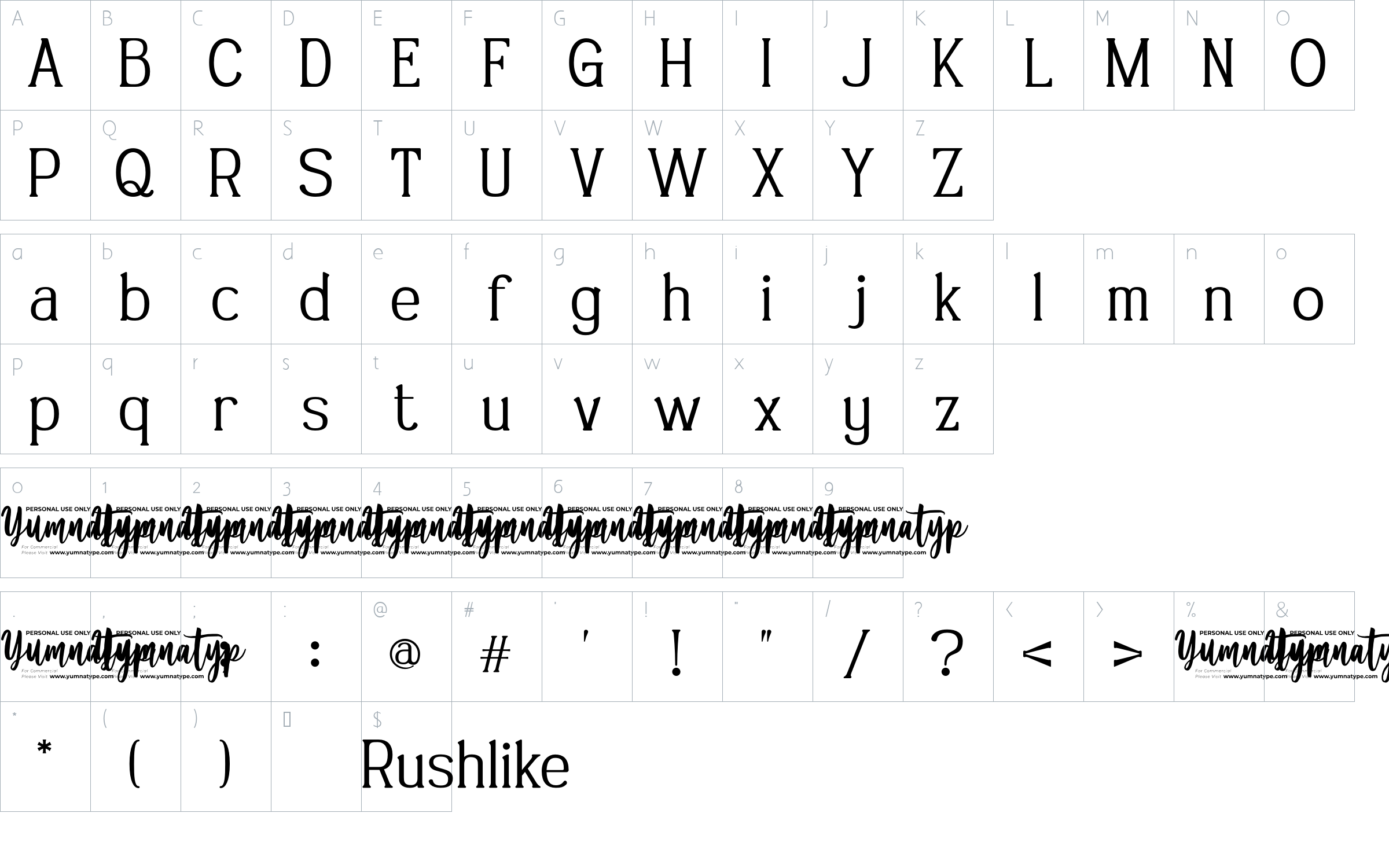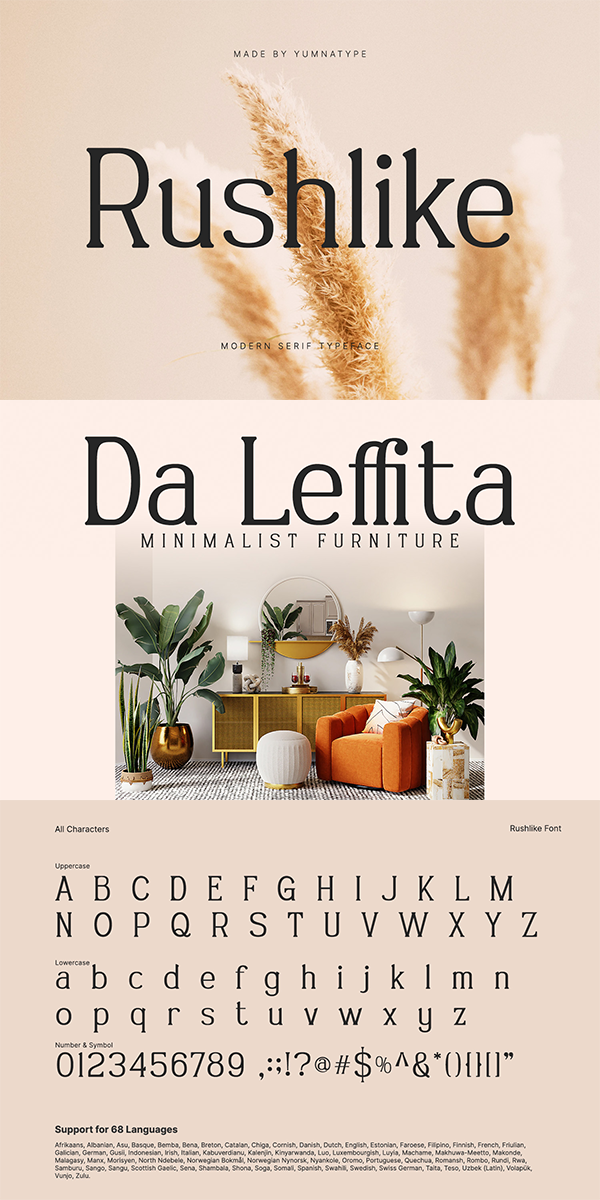
Rushlike Font
About Rushlike
Rushlike is a timeless serif font that epitomizes simplicity and elegance. Crafted with clean and detailed lines, this font exudes sophistication and refinement. Each letter is meticulously crafted with balanced proportions and subtle curves, creating a harmonious rhythm that is pleasing to the eye.
The simplicity of Rushlike allows it to be incredibly versatile. Embrace the understated elegance of Rushlike and let its simple yet refined style elevate your designs to new heights of sophistication and class. In addition, enjoy the features here.
Rushlike fits in headlines, logos, posters, flyers, branding materials, greeting cards, print media, editorial layouts, and many more designs. Find out more ways to use this font by taking a look at the font preview.